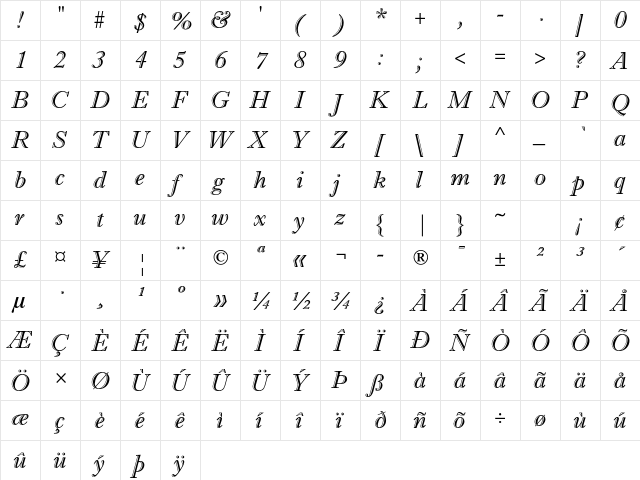
Imprint MT Std Shadow It Font Preview
Imprint MT Std Shadow It
Imprint MT Std Shadow It Font Details
Design Context for Imprint MT Std Typeface
Imprint MT Std brings ornamental detail and strong personality to headlines and identities, where visual impact matters more than quiet functionality.
Font Pairing: Pair with a clean neutral sans-serif for body copy to let Imprint MT Std's character lead without overwhelming the composition.
Pro Tip: Use Imprint MT Std exclusively at display sizes — it was designed to be seen, not read at length. Let a neutral companion handle body copy.